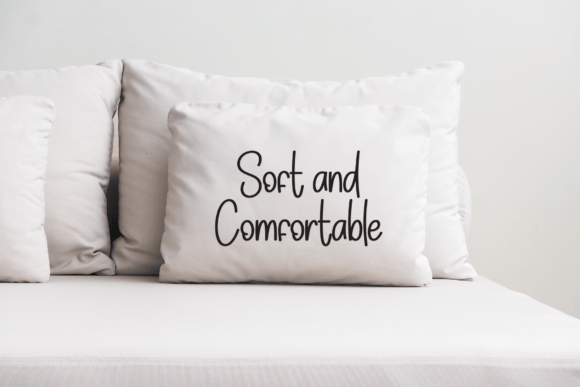
Stylish Handwriting Font
The Stylish Handwriting font is a modern handwritten script typeface that captures the effortless beauty of natural penmanship. With its tall, slightly narrow letterforms and smooth, flowing strokes, it brings an authentic and relaxed feel to any design.
The clean, even lines paired with a casual elegance make it versatile, striking the perfect balance between playful and polished. Ideal for personal notes, quotes, branding, and creative projects, Stylish Handwriting delivers a warm, approachable tone that feels both contemporary and timeless, adding a personal touch that connects effortlessly with your audience.